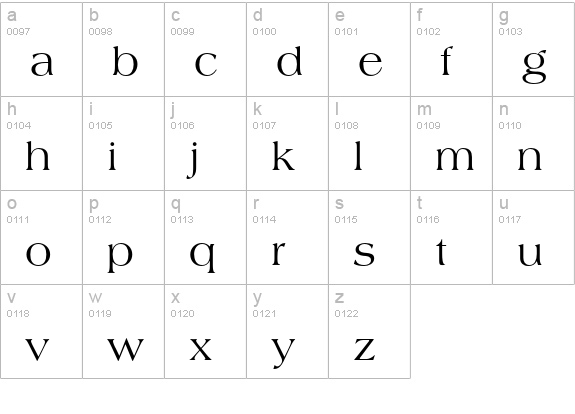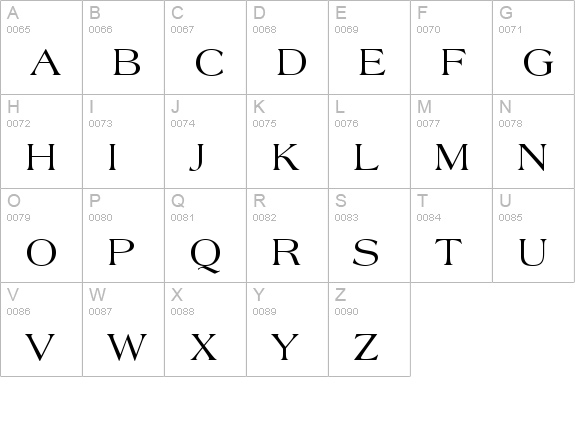
Americana Std Roman is a classic serif font that exudes elegance and sophistication. With its timeless design and clean lines, this font is perfect for a wide range of design projects, from branding to editorial work. Its versatile nature makes it a go-to choice for designers looking to add a touch of professionalism to their creations. The best part? Americana Std Roman is available for free download at FontsMarket.com, making it accessible to anyone looking to elevate their design game without breaking the bank. Whether you're working on a print project or a digital design, this font is sure to make a lasting impression with its traditional yet modern aesthetic. Download Americana Std Roman today and take your designs to the next level!